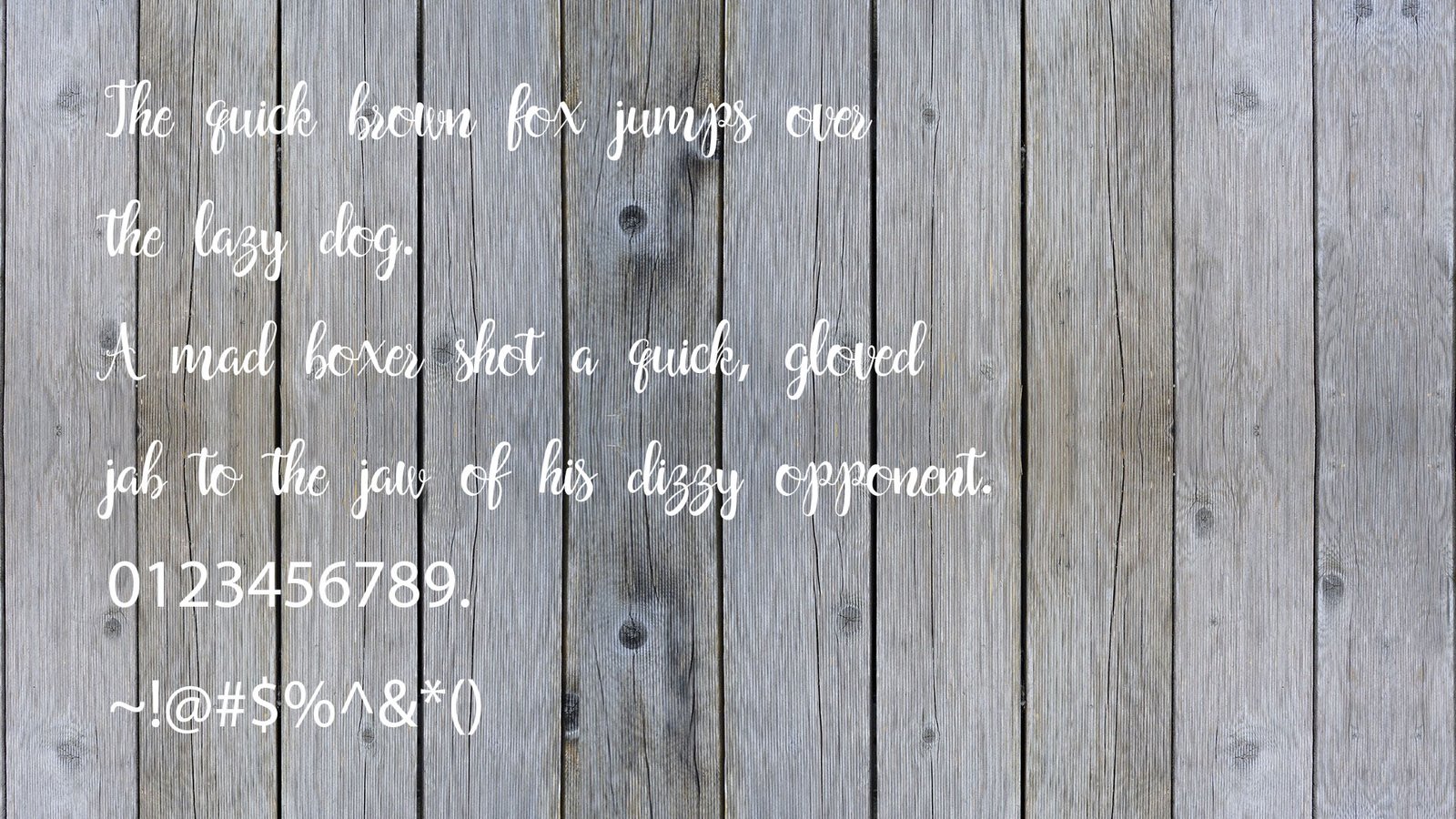
Here we are introducing the very amazing typeface that has a clear texture and appearance named Saldina Font.
This typeface is a member of the Script font family. It is designed by famous font designer Vanroem. This typeface is released on the date of 9 Feb 2018.
Saldina Font Family
This font is Paired with Arabella and Annabella typeface. This typeface will give you huge benefits when you will use this font in the website headlines. This font is flexible and easily compares with the other fonts so you can create some excellent designs by using this font.